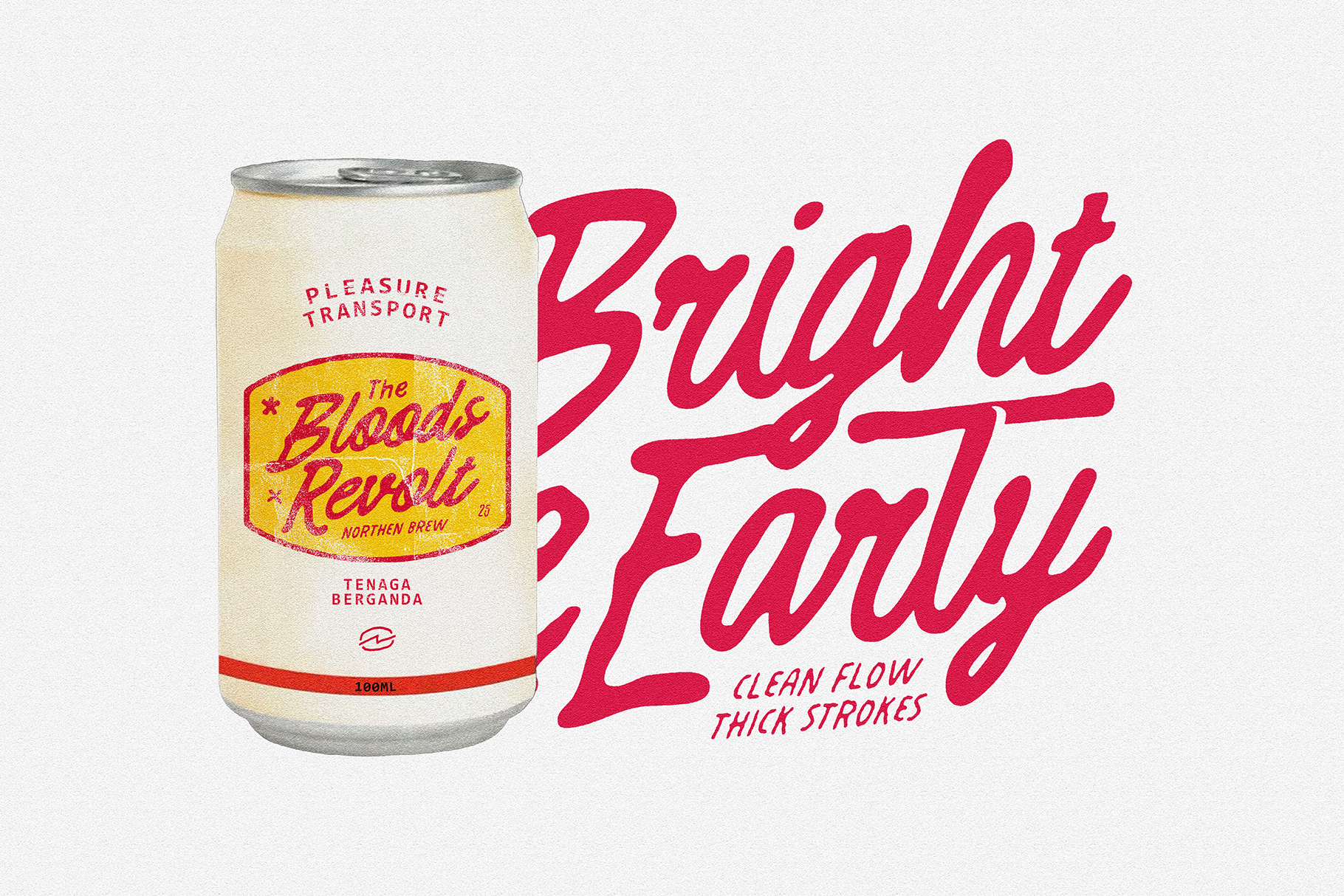
ATP-Dreamies
This typeface is crafted entirely by hand, built from the organic strokes of pen on paper. Every letter carries the raw flow of handwriting—bold curves, tight connections, and subtle imperfections that machines can’t replicate. It’s not polished into uniformity; instead, it preserves the natural rhythm of the hand, making each character feel alive and personal.
The thick strokes bring strength, while the fluid motion adds an effortless smoothness, almost like a signature stretched across a page. It blends vintage script energy with a modern edge, making it versatile for branding, posters, or anything that needs a bold, human touch.